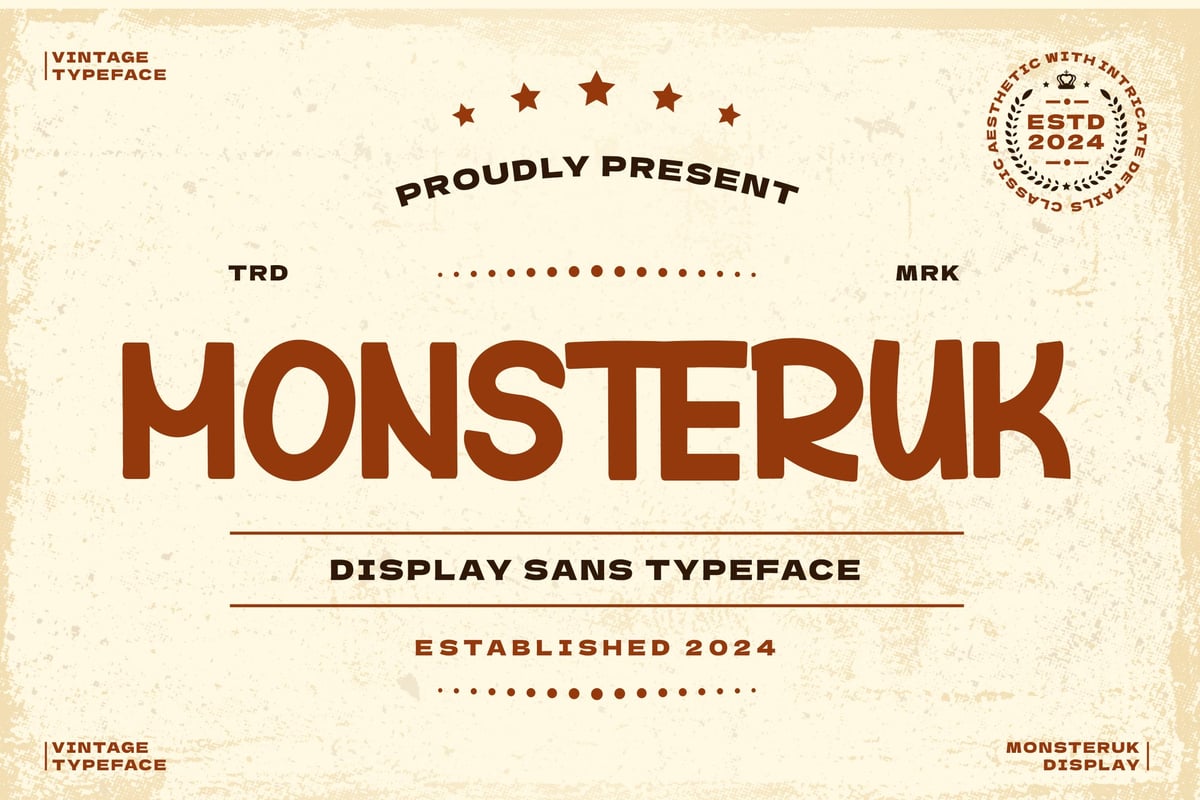
Monsteruk - Display sans Serif Font
Bold, nostalgic, and full of character — Monsteruk is the vintage display font your next project has been waiting for.
Monsteruk is a display sans serif typeface built around a strong vintage and classic aesthetic, designed to feel bold without losing its approachable, friendly charm. Its rounded, playful letterforms strike the perfect balance between nostalgic warmth and modern versatility.
Whether you're designing logos, posters, product packaging, labels, retro branding campaigns, or standout headlines, Monsteruk delivers that timeless retro-classic vibe with just enough contemporary edge to keep things fresh.